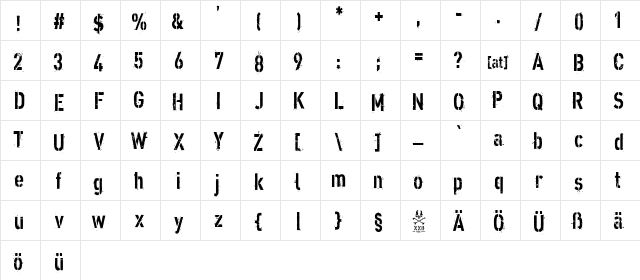
XXII-ARMY DIRTY
| Foundry | LECTER JOHNSON |
| Designer | LECTER JOHNSON |
Design Context for XXII-ARMY Typeface
XXII-ARMY has the no-nonsense character of military stencilling and tactical signage, projecting authority and directness.
A strong choice for security brands, outdoor gear, and high-stakes visual communication.
Pro Tip: Try XXII-ARMY in all-caps for the most authentic military signage feel. It pairs well with stark, minimal layouts and muted colour palettes.